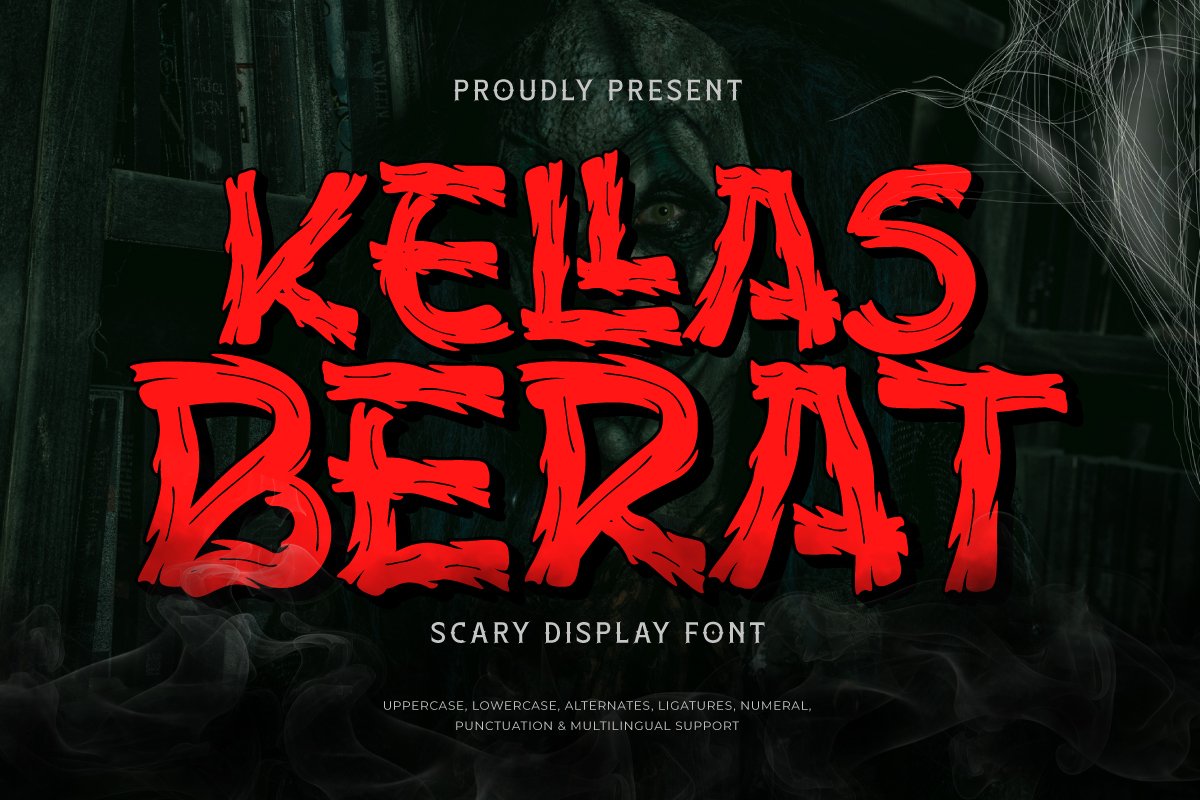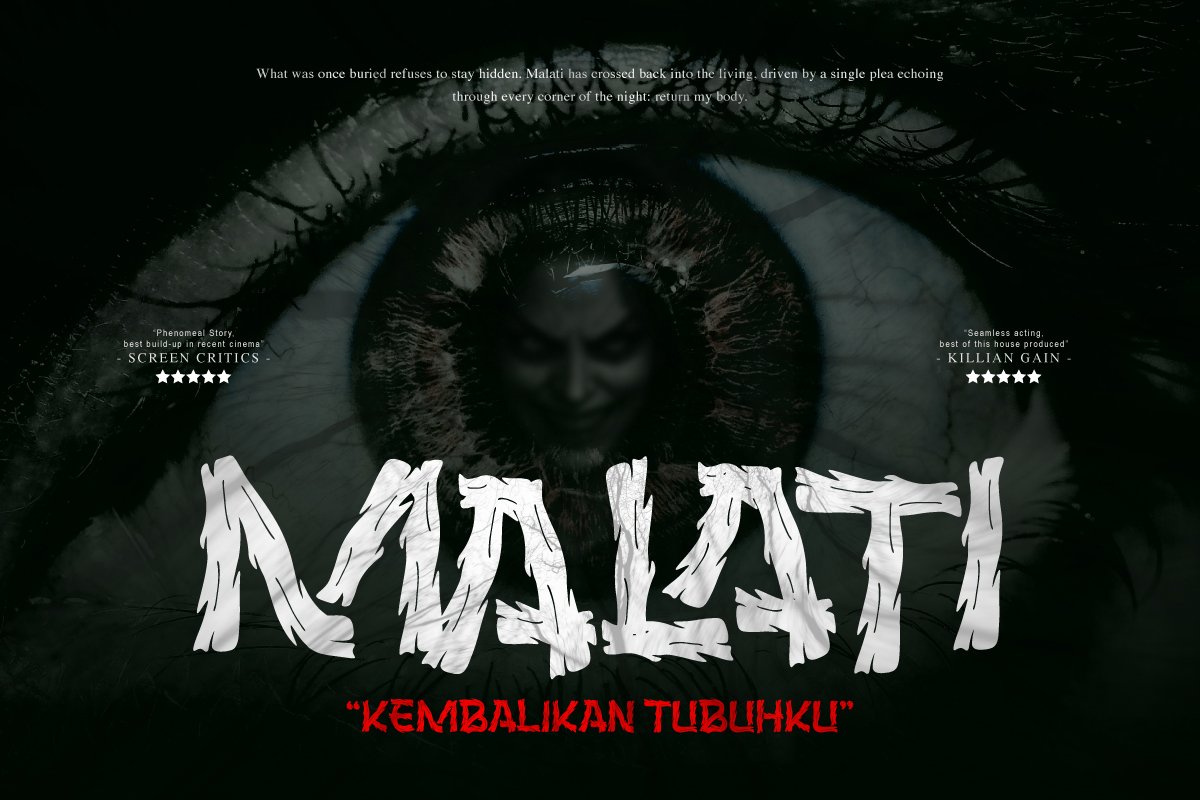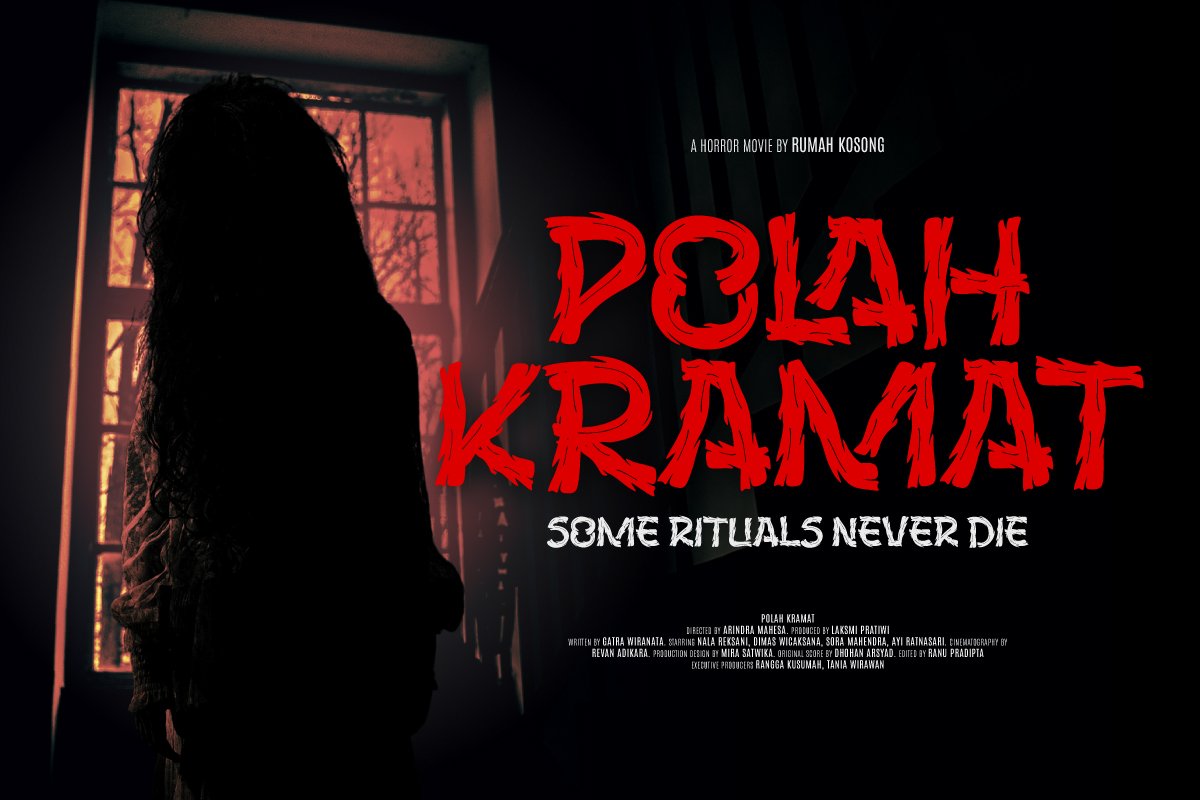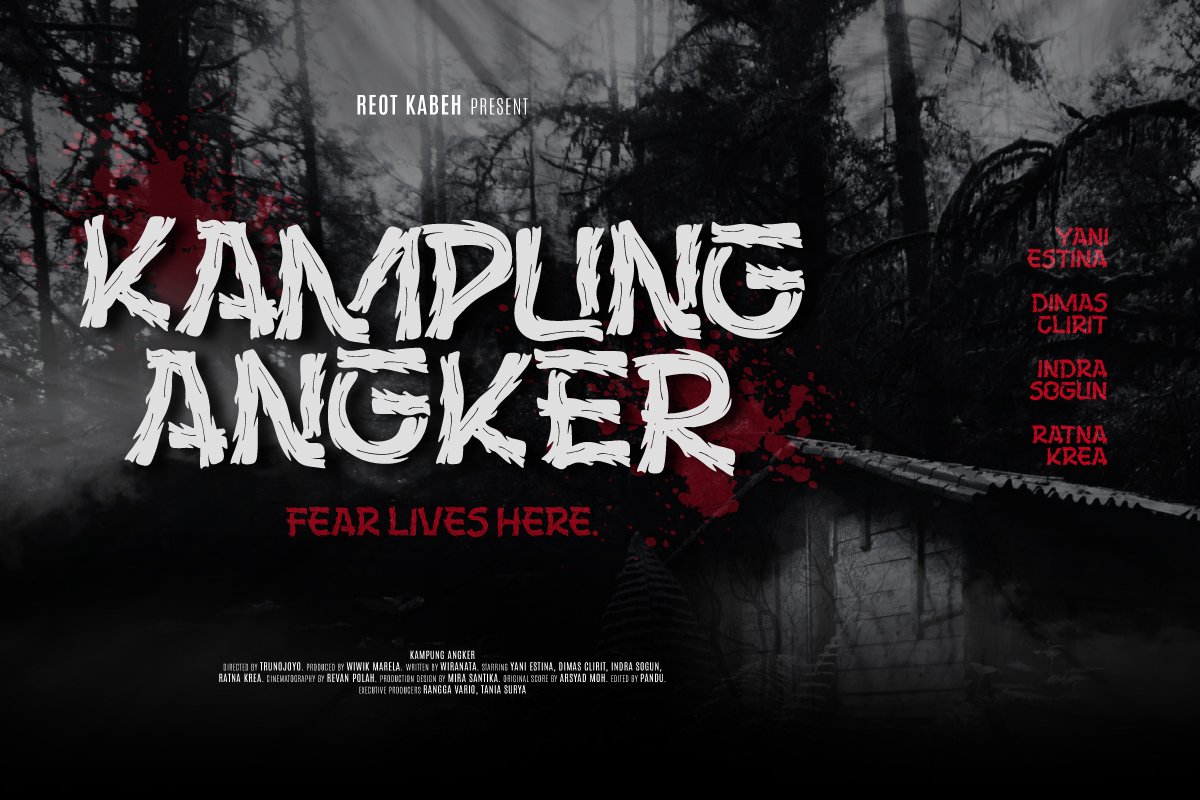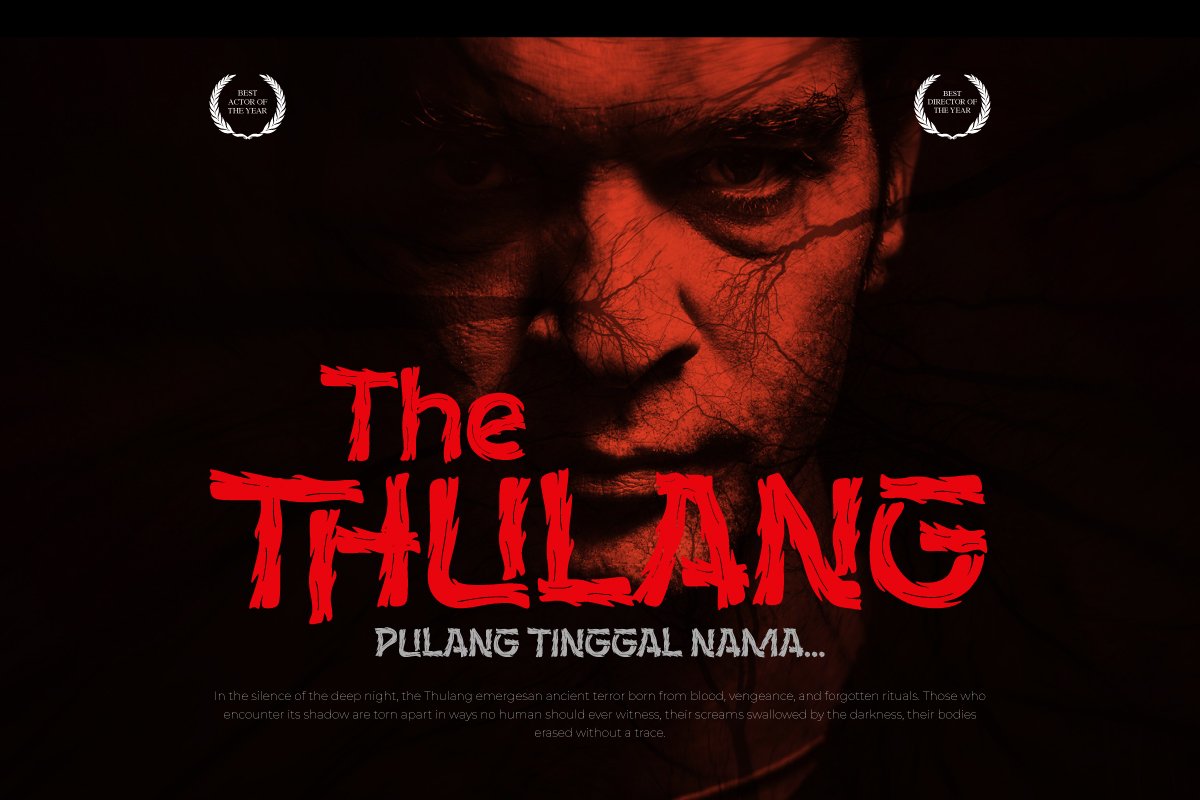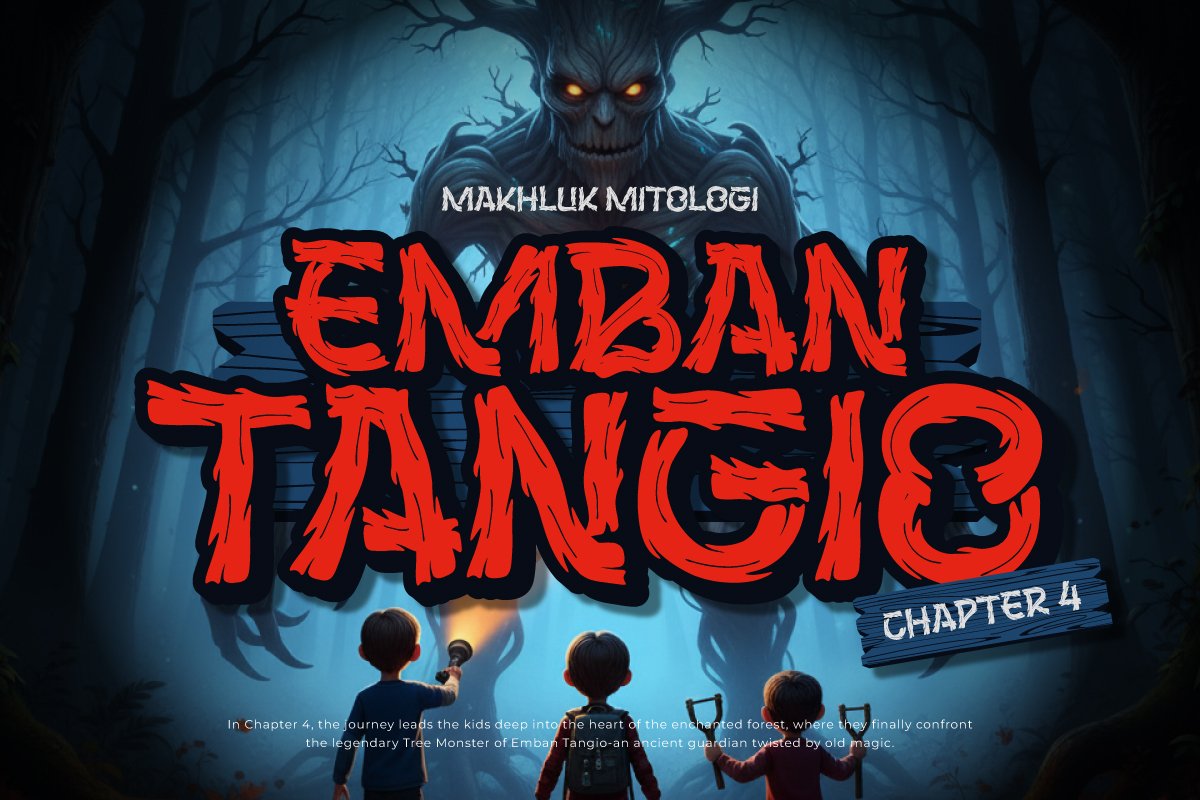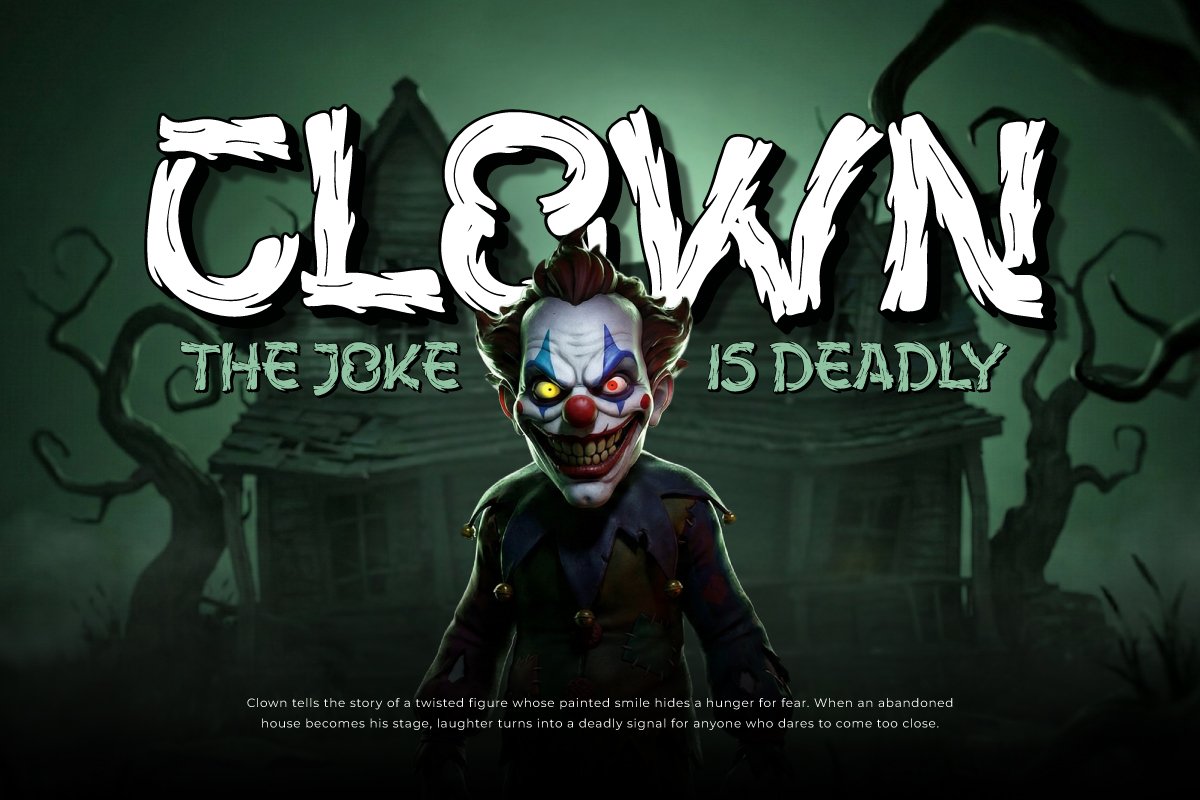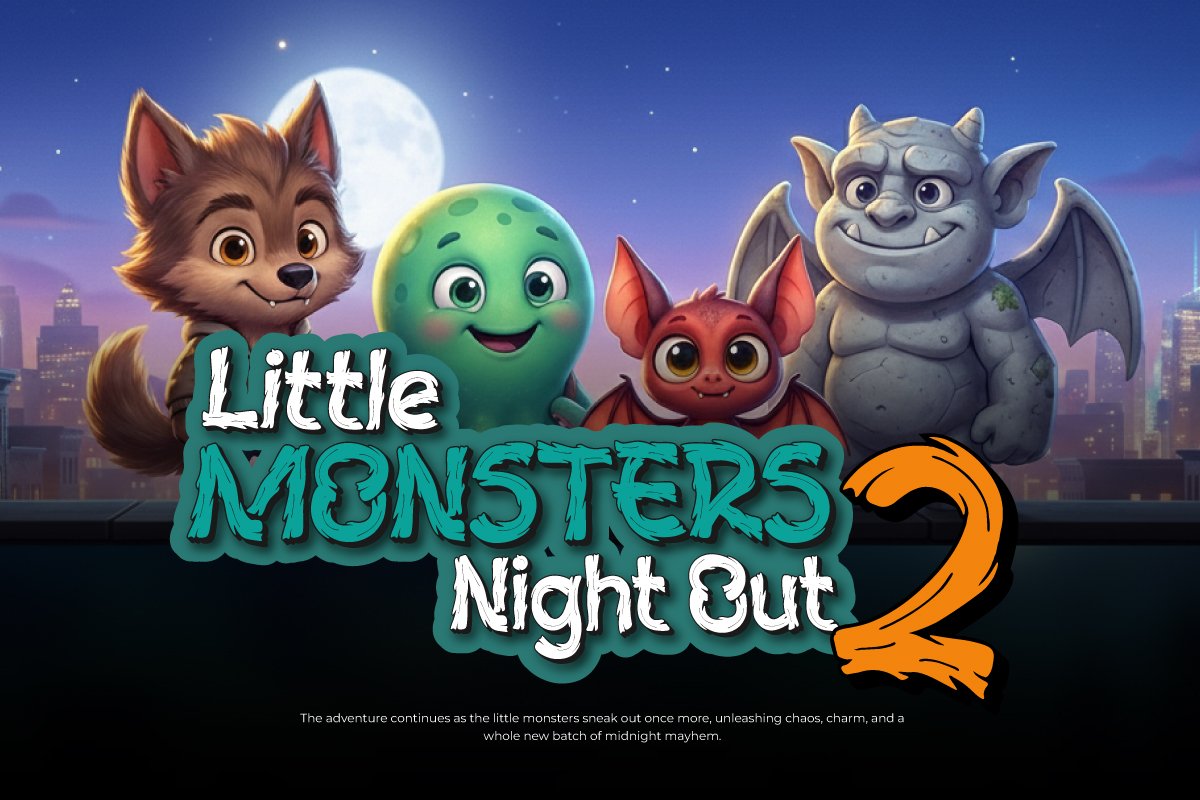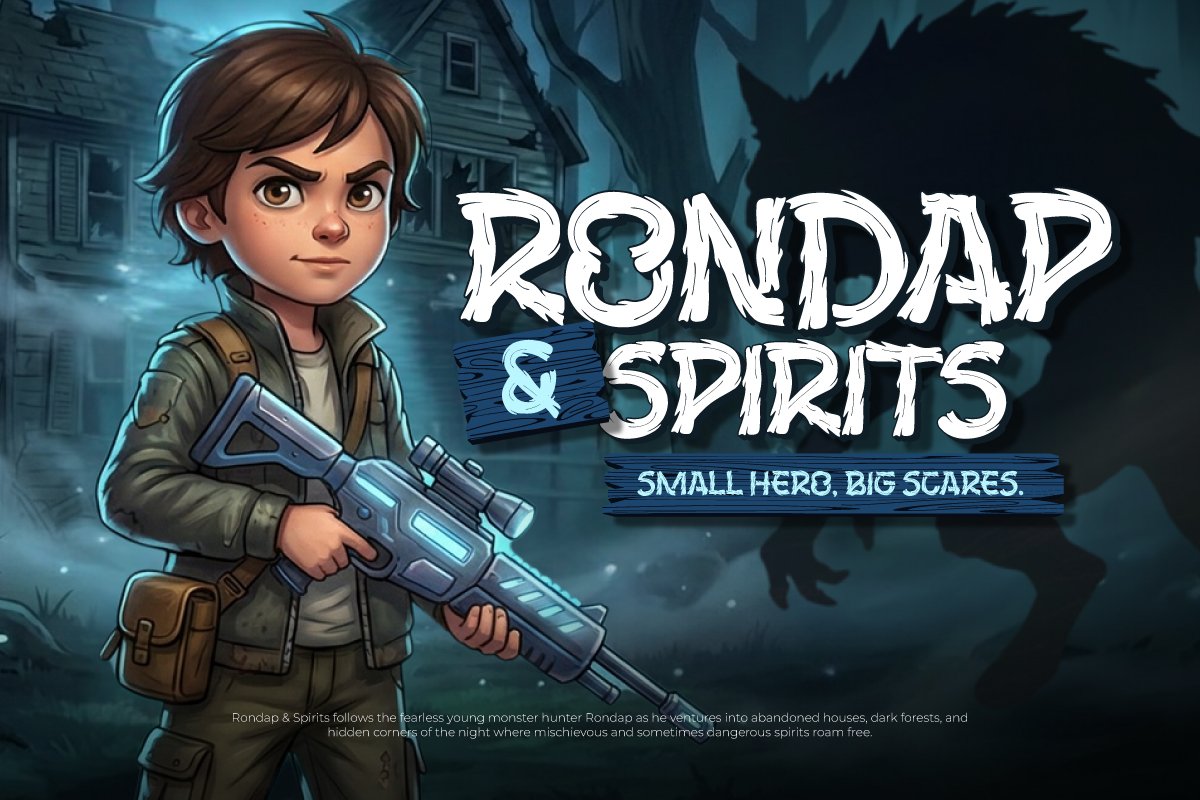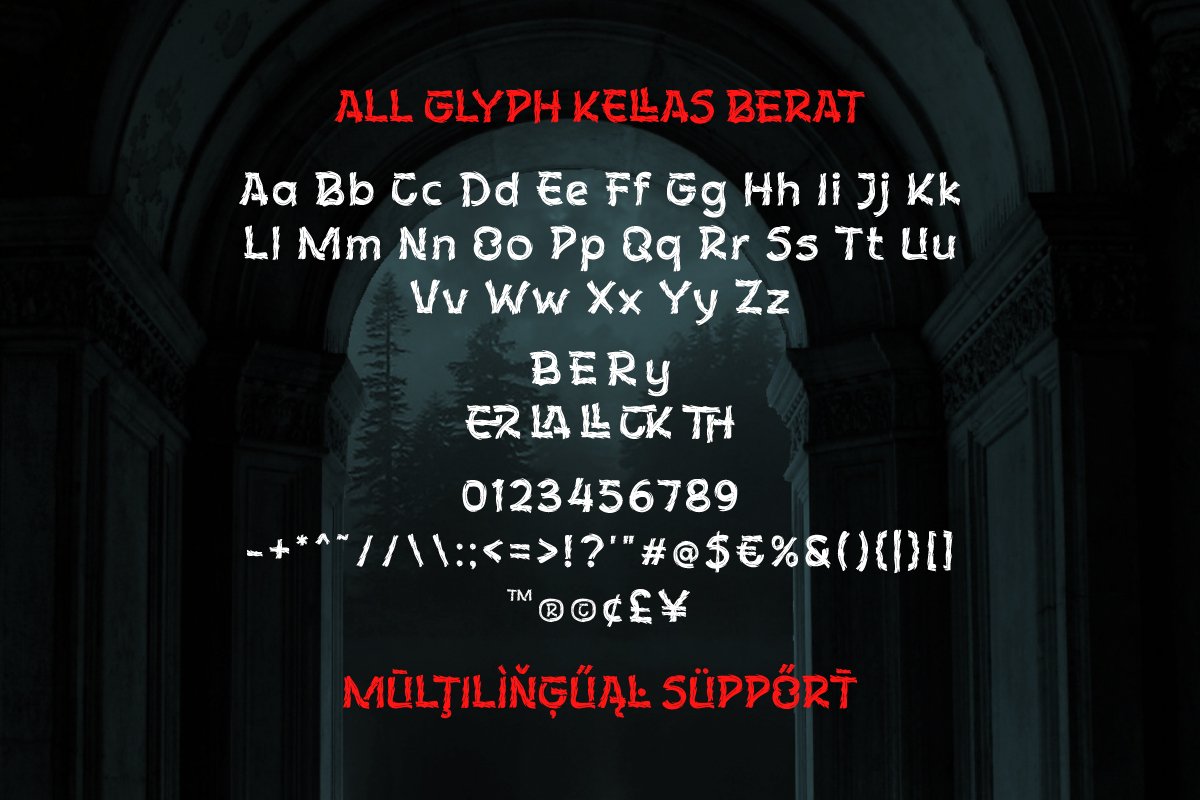
Kellas Berat – Scary Display Font
Kellas Berat is a scary display font featuring rough, sharp, and expressive letterforms designed to create fear, mystery, and intense emotion. Its handcrafted, brutal strokes immediately grab attention and deliver a powerful visual impact.
This font is perfect for horror movie titles, Halloween posters, fiction book covers, horror games, crime visuals, and mysterious storytelling projects. Each letter feels bold and chaotic, enhancing the dark and unsettling atmosphere.
With its aggressive handwriting style, Kellas Berat helps designers visually communicate tension, fear, and dark imagination. An ideal choice for dramatic headlines that demand a strong and unforgettable presence.